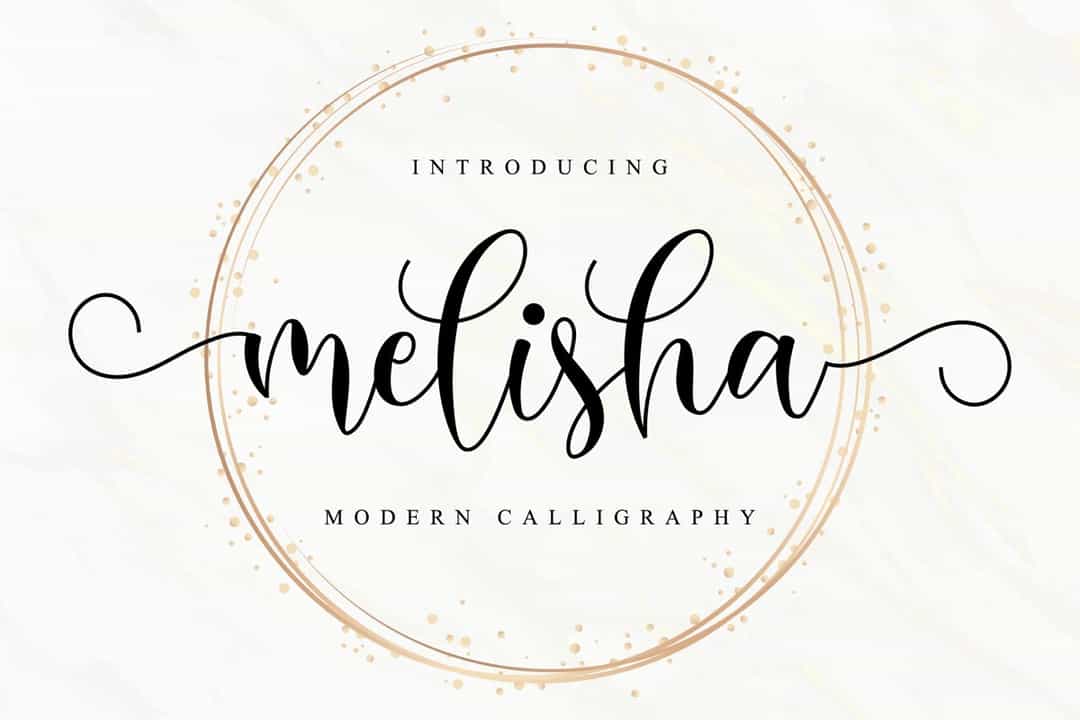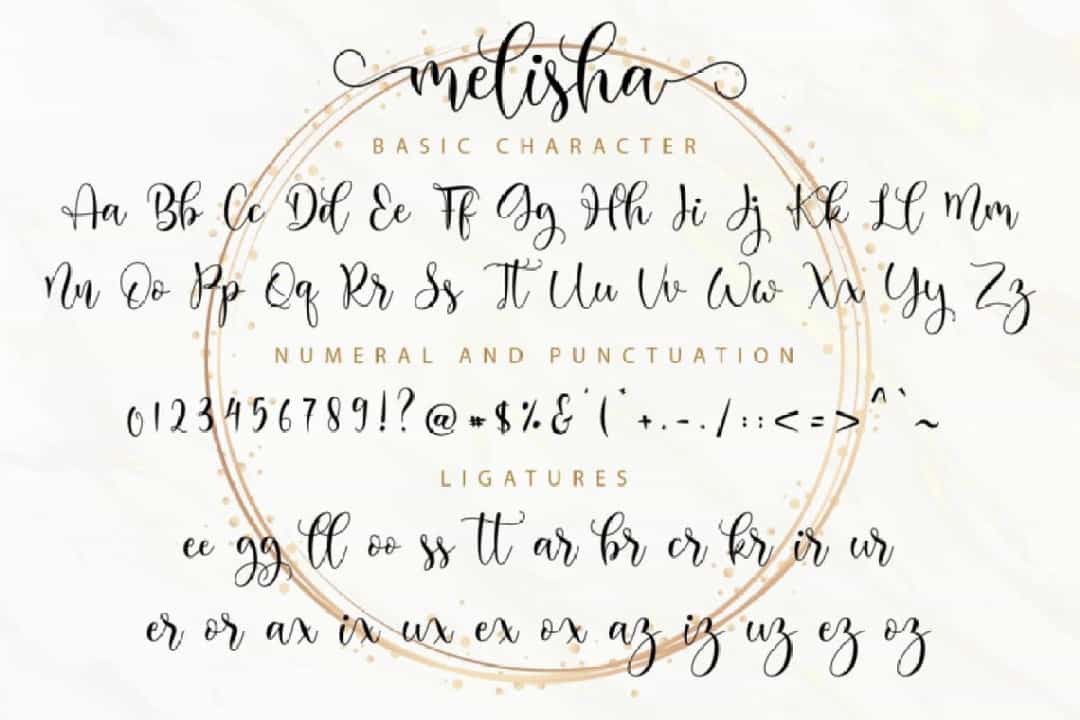
Discover Melisha Modern Calligraphy Script Font, part of the Calligraphy Handwritten Script collection—a versatile and unique font perfect for adding a personal touch to your projects. Download it for free and enjoy crafting designs with style, from invitations to social media posts. This font is available exclusively for personal use, giving you the freedom to create without limits. Unlock your creativity with Melisha Modern Calligraphy Script Font today!
The Melisha is a gorgeous script font which will surely add elegance to your designs. Owing to its modern, graceful and stylish look it can be used in various purposes, including branding projects, logos, invitations, wedding cards, and any design that needs the touch of handwriting such as social media posts or logo designing.